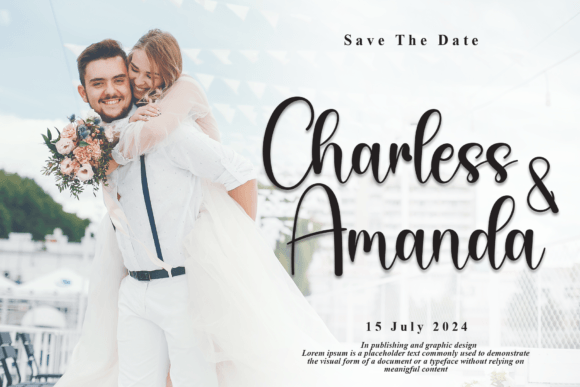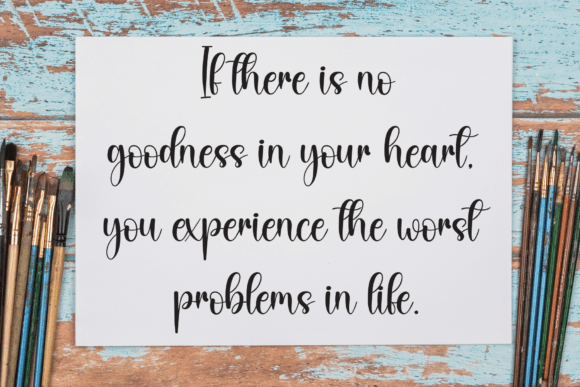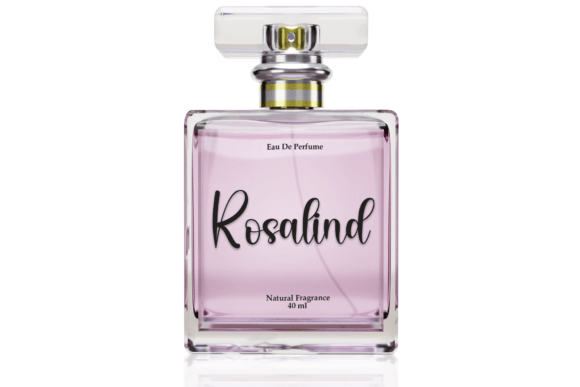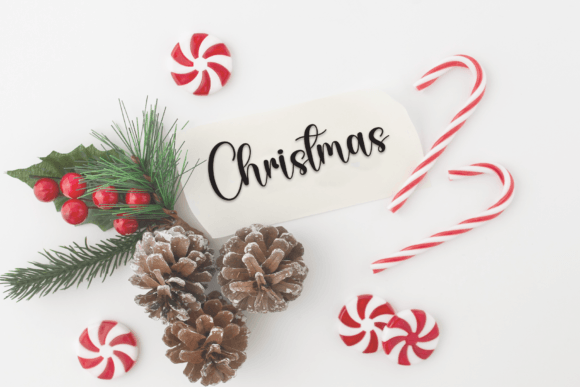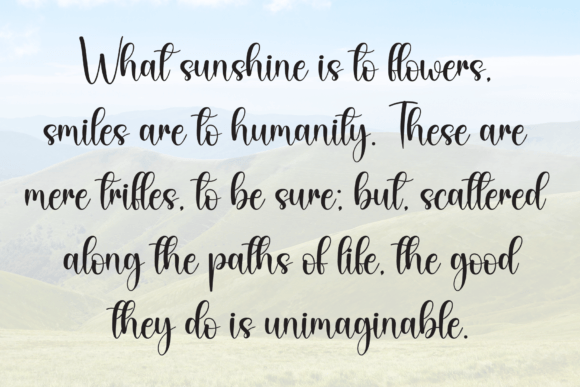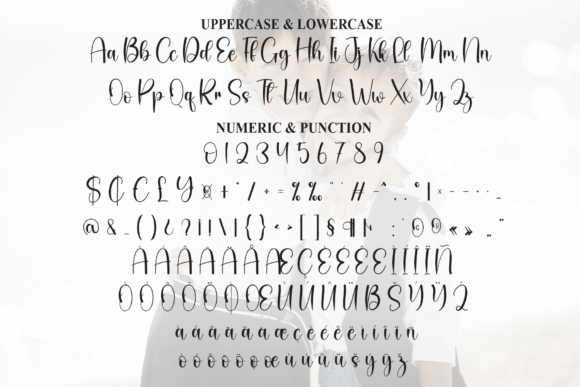
Introducing Brother Font: The Perfect Handwritten Touch for Your Designs
Are you tired of using the same old fonts in your designs? Look no further than Brother Font, a charming handwritten font that adds a warm and personal touch to any text. With its fluid strokes and friendly curves, Brother Font is perfect for designers and crafters looking to add a stylish flair to their work.
The Characteristics of Brother Font
Brother Font is a unique and eye-catching font that stands out from the crowd. Its handwritten style is reminiscent of a warm and friendly conversation, making it perfect for designs that require a personal touch. The font features:
- Fluid strokes that give the font a natural and effortless look
- Friendly curves that add a touch of warmth and approachability
- A charming and whimsical feel that’s perfect for creative projects
Why Use Brother Font?
So why should you use Brother Font in your designs? Here are just a few reasons:
- Add a personal touch**: Brother Font is perfect for adding a personal touch to your designs. Whether you’re creating a logo, a brochure, or a social media post, this font will make your text stand out and feel more approachable.
- Stand out from the crowd**: With so many fonts to choose from, it can be hard to find one that truly stands out. Brother Font is a unique and eye-catching font that will set your designs apart from the rest.
- Perfect for crafty projects**: If you’re a crafter or a maker, Brother Font is the perfect choice for your projects. Whether you’re creating labels, tags, or other materials, this font will add a touch of whimsy and charm.
How to Use Brother Font
Using Brother Font is easy! Here are a few tips to get you started:
- Pair it with other fonts**: Brother Font pairs perfectly with other fonts, such as sans-serif fonts or serif fonts. Experiment with different combinations to find the perfect look for your design.
- Use it for headings and titles**: Brother Font is perfect for headings and titles, where you want to make a bold statement. Use it to add a touch of personality to your text.
- Experiment with different sizes and colors**: Don’t be afraid to experiment with different sizes and colors of Brother Font. This will help you find the perfect look for your design and add visual interest.
Brother Font in Action
But don’t just take our word for it! Here are a few examples of Brother Font in action:
- Logo design**: Use Brother Font to create a unique and eye-catching logo that stands out from the crowd.
- Brochure design**: Add a personal touch to your brochures with Brother Font. This font is perfect for headings, titles, and body text.
- Social media posts**: Use Brother Font to add a touch of personality to your social media posts. This font is perfect for creating engaging and shareable content.
In conclusion, Brother Font is a charming handwritten font that’s perfect for adding a personal touch to your designs. With its fluid strokes and friendly curves, this font is sure to make your text stand out and feel more approachable. Whether you’re a designer or a crafter, Brother Font is a great choice for any project. So why not give it a try and see the difference it can make?